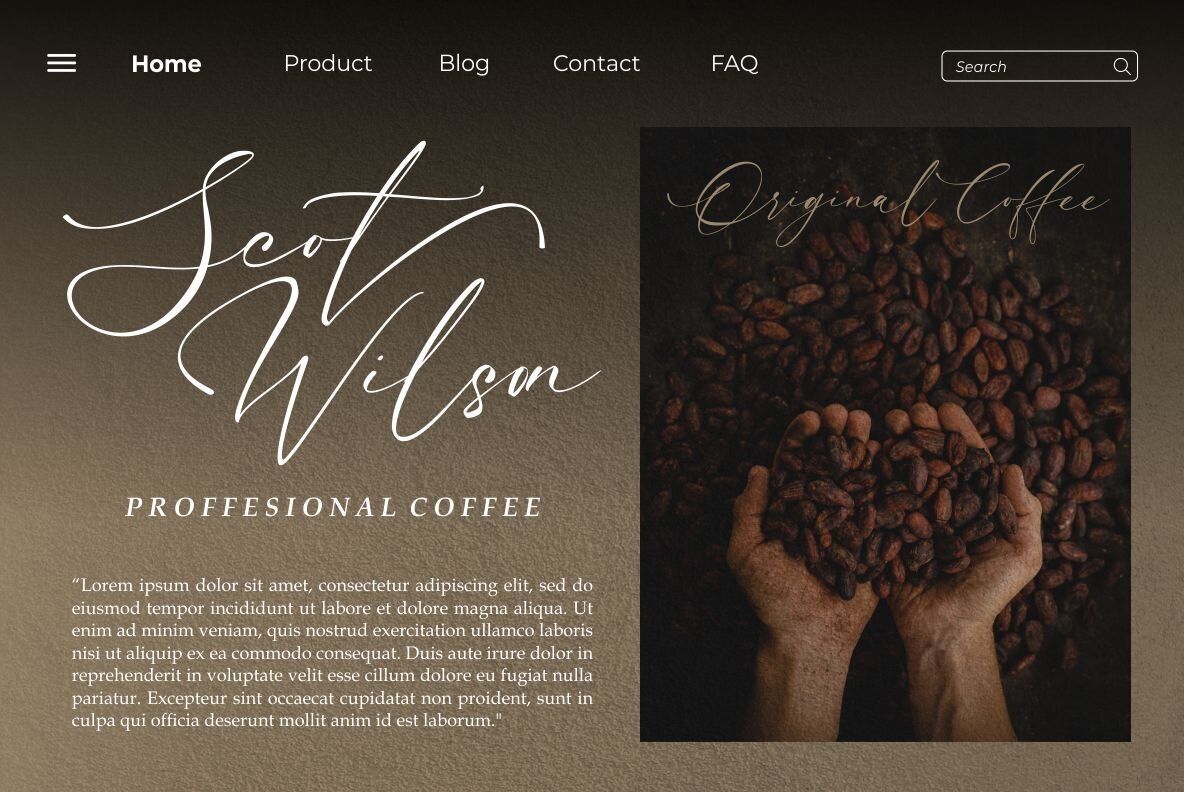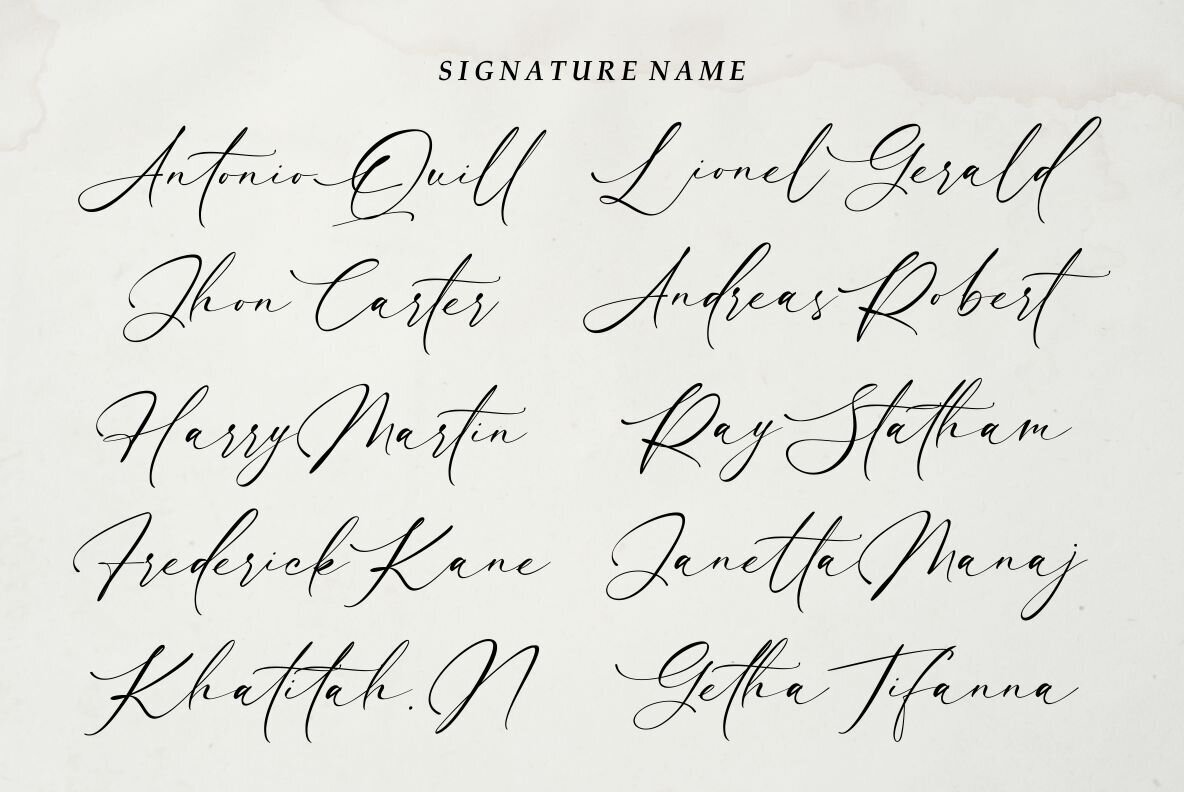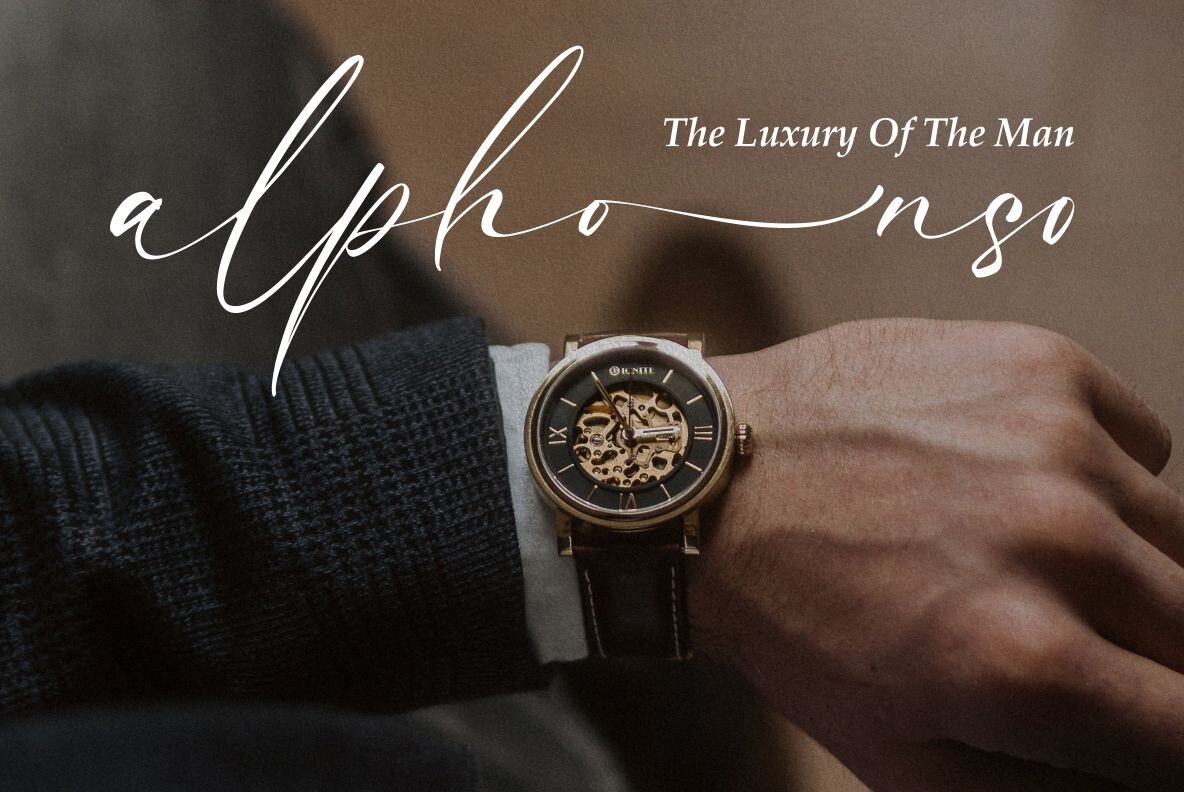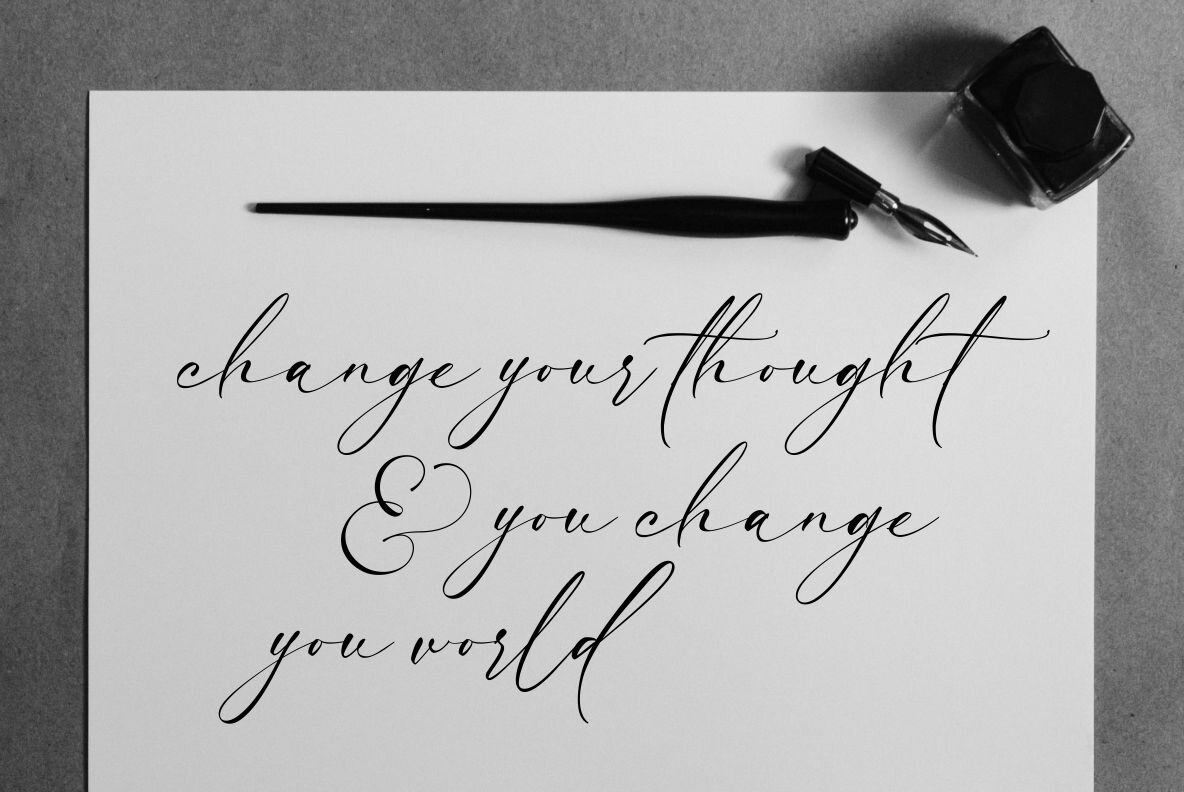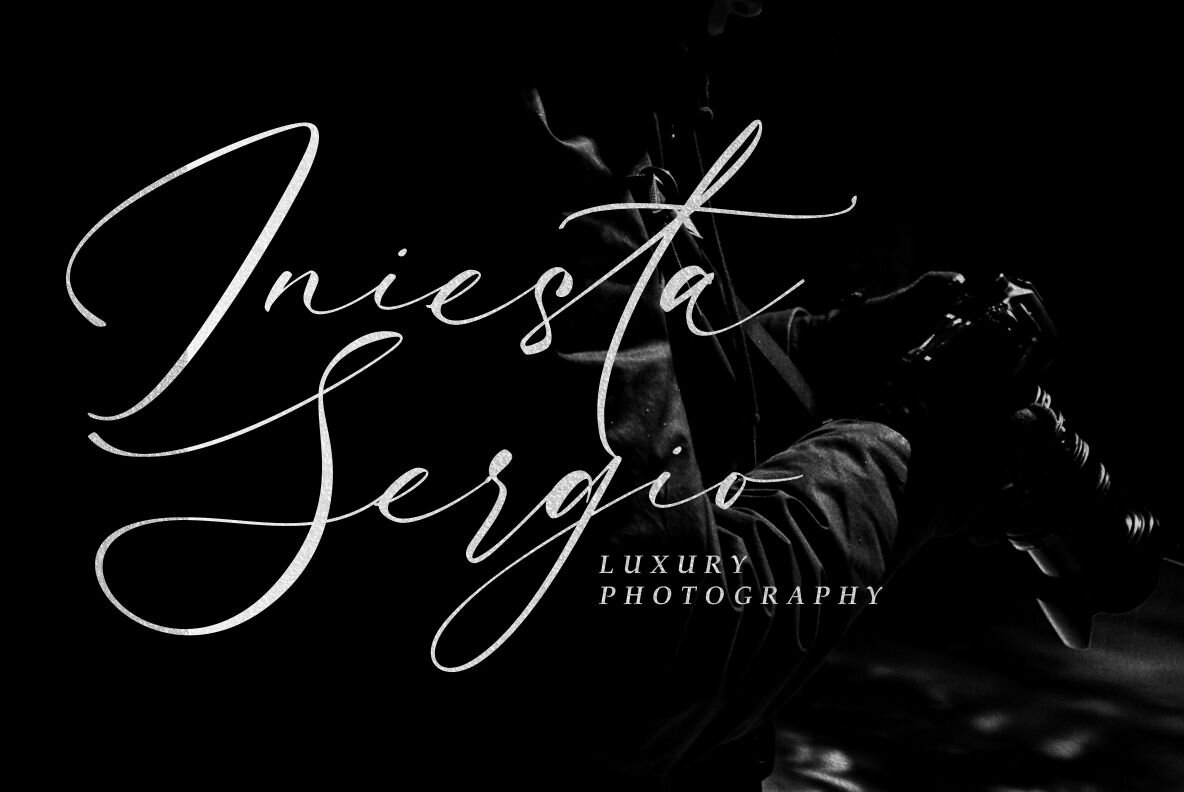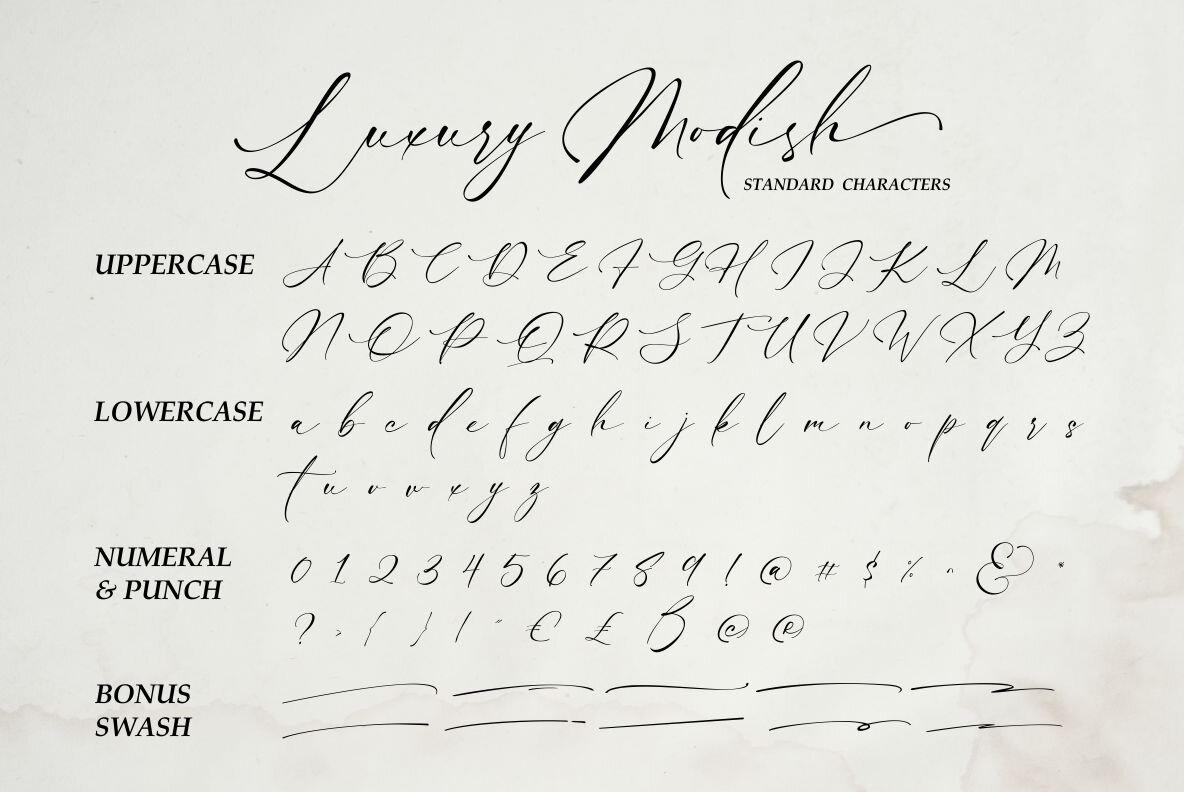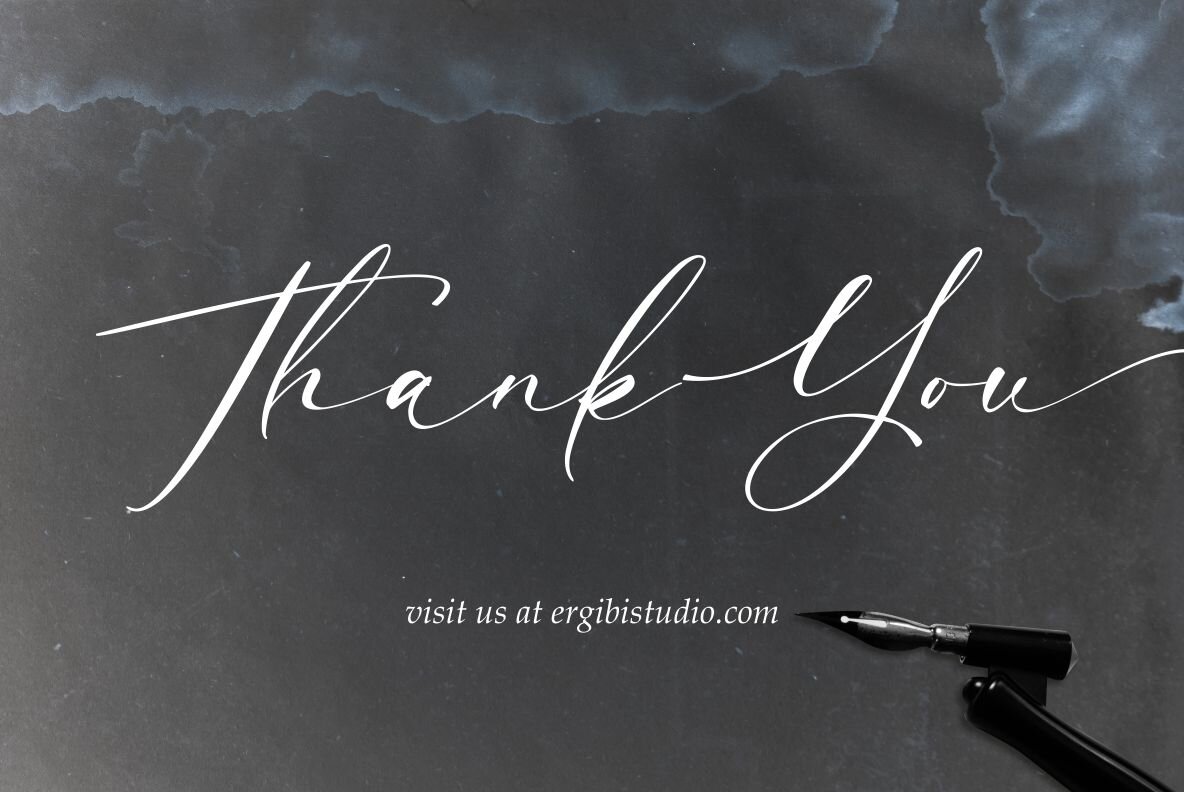
Luxury Modish Font
Luxury Modish Regular
Embodying elegance and refinement, the Luxury Modish font by Ergibi Studio captures the art of modern calligraphy with a luxurious touch. The delicate swashes and graceful curves imbue each character with a sense of sophistication, making this font an ideal choice for any project that seeks to convey elegance and style. Features: Perfect for social media posts, product designs, and more, Luxury Modish offers a compelling choice for conveying elegance.Luxury Modish: A Sophisticated Calligraphy Font